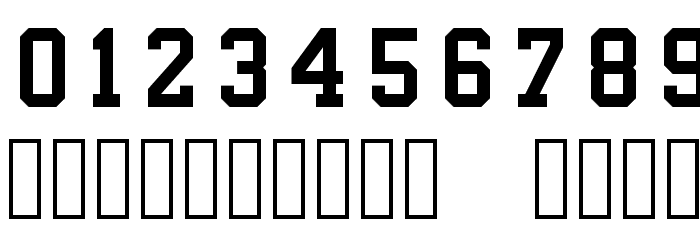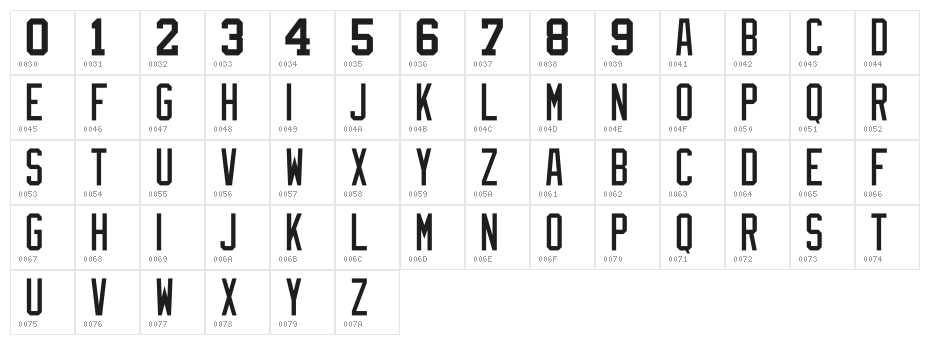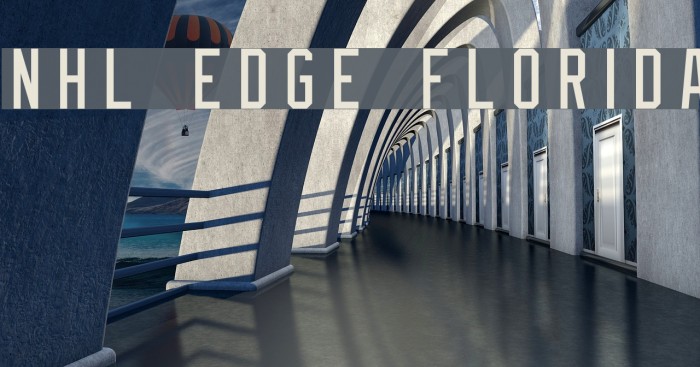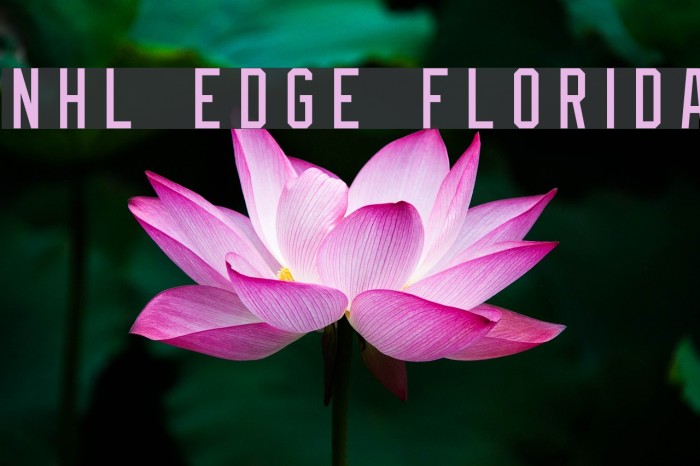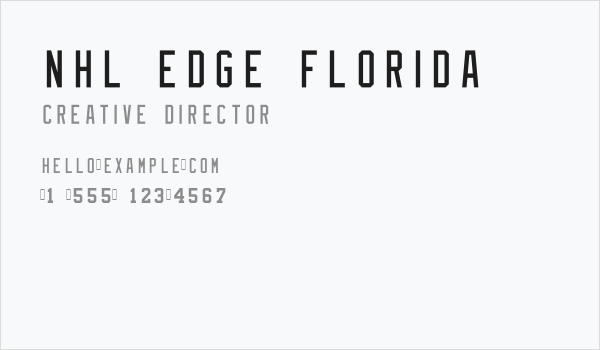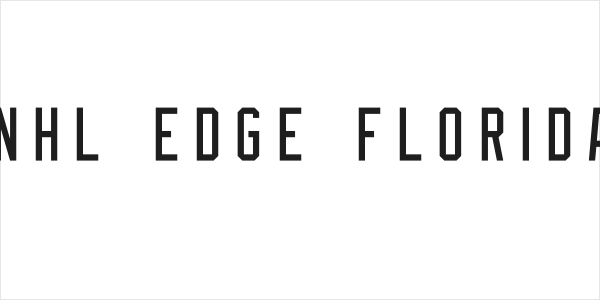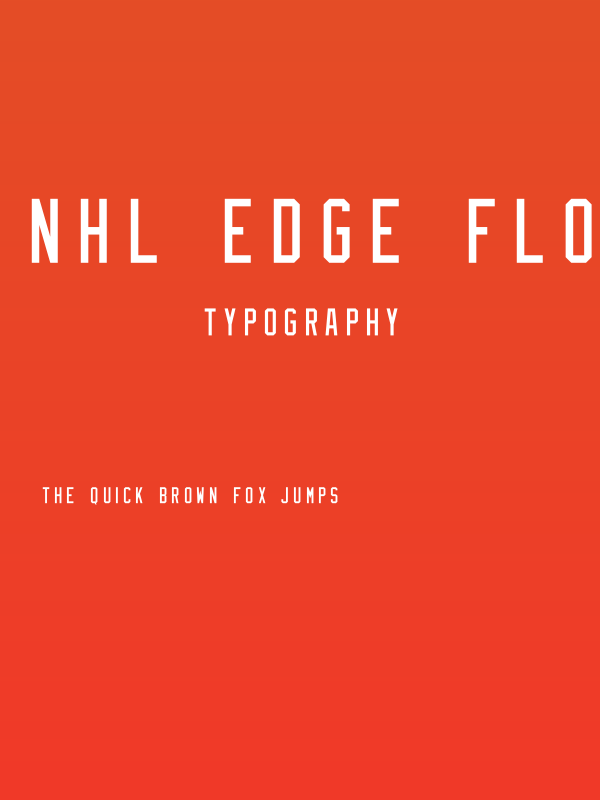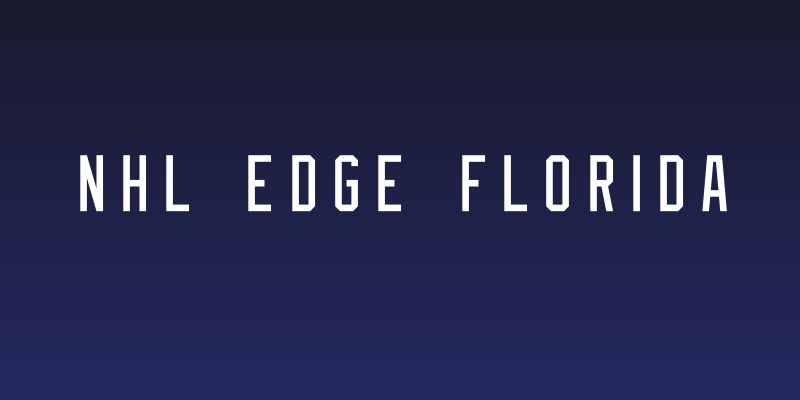
NHL Edge Florida Font
NHL Edge Florida Description
This font features a bold and angular design, characterized by its geometric and block-like letterforms. The uppercase letters are tall and narrow, with sharp corners and a strong presence. The numerals follow a similar style, maintaining consistency across the character set. The font exudes a modern and sporty aesthetic, making it ideal for dynamic and energetic designs. Its clean lines and structured appearance lend themselves well to projects that require a bold statement.
| Proposed Projects | Ideal for sports team branding, athletic apparel, event posters, and dynamic logo designs. |